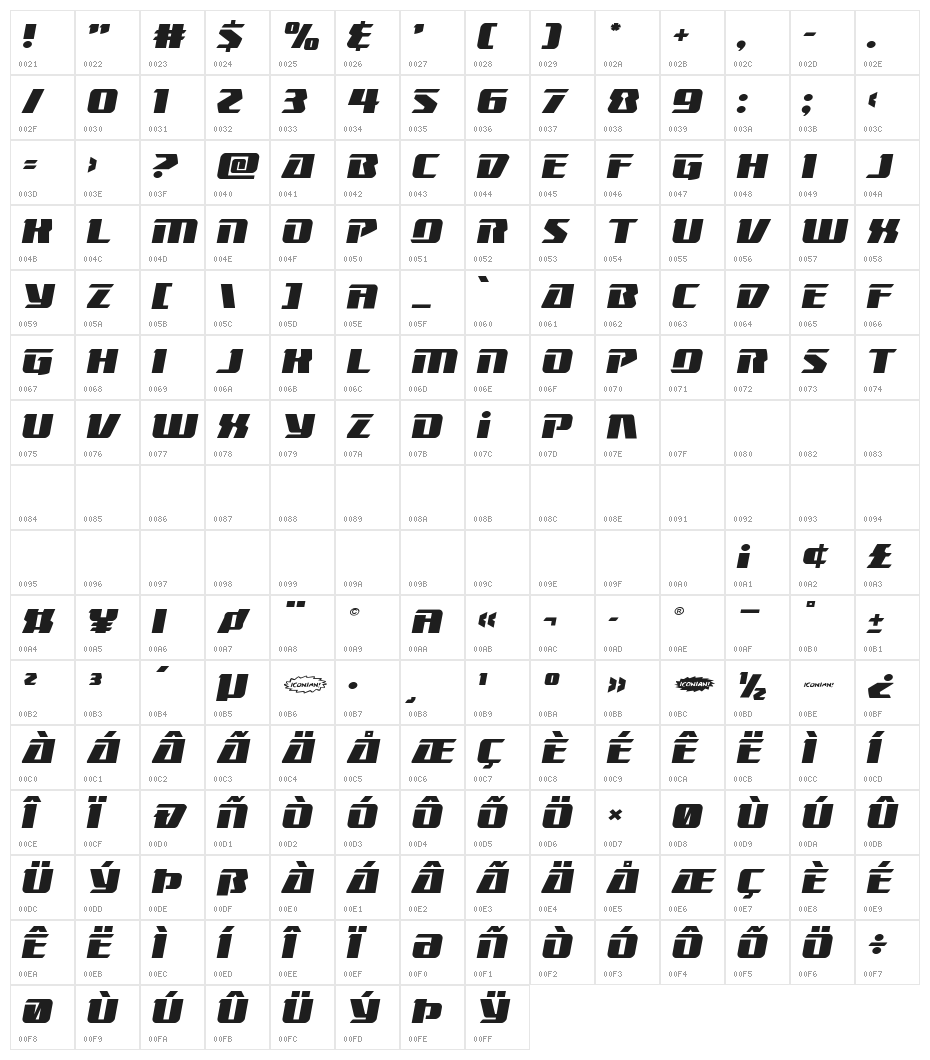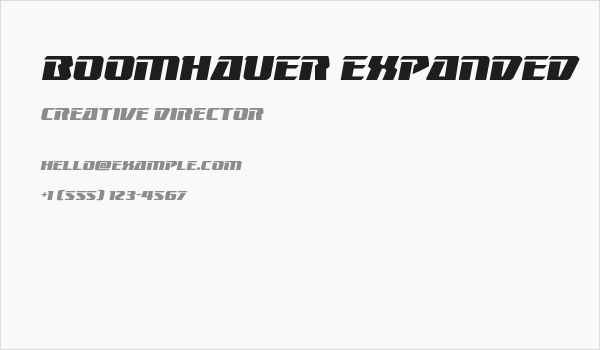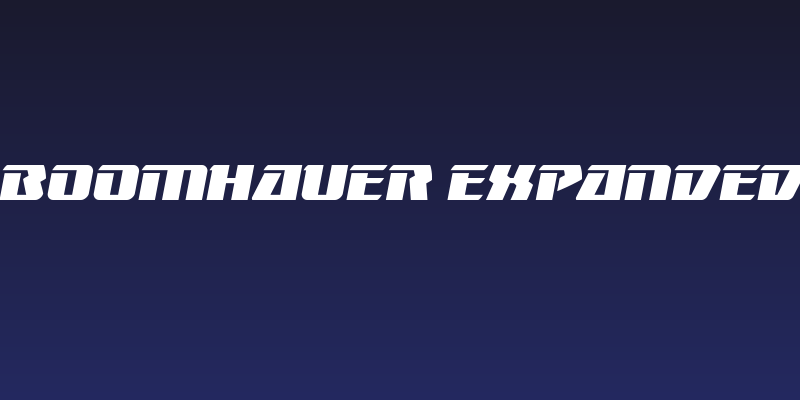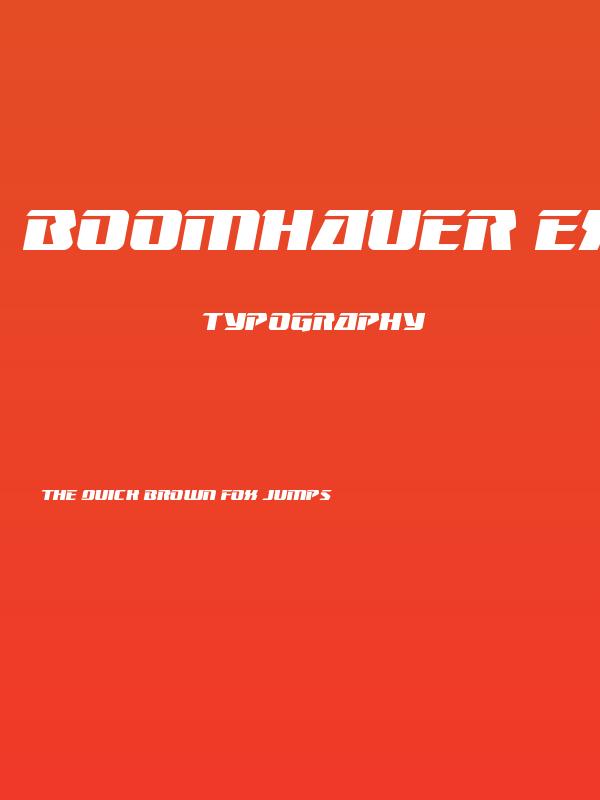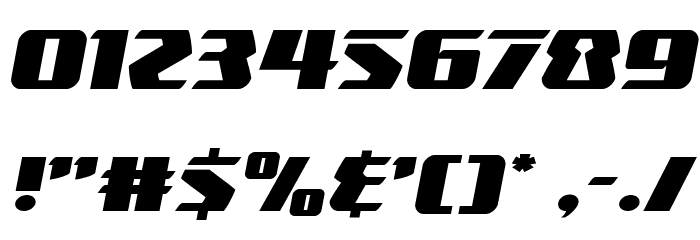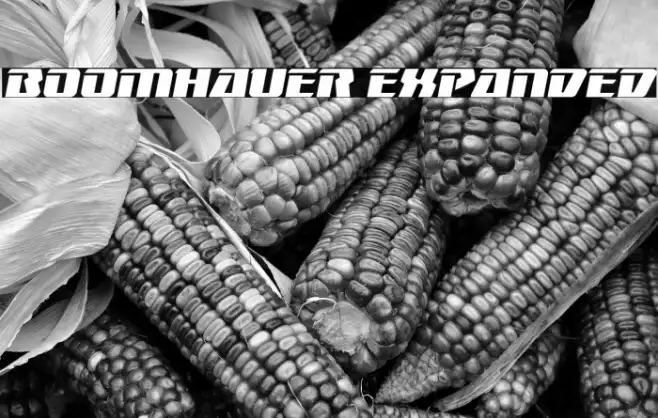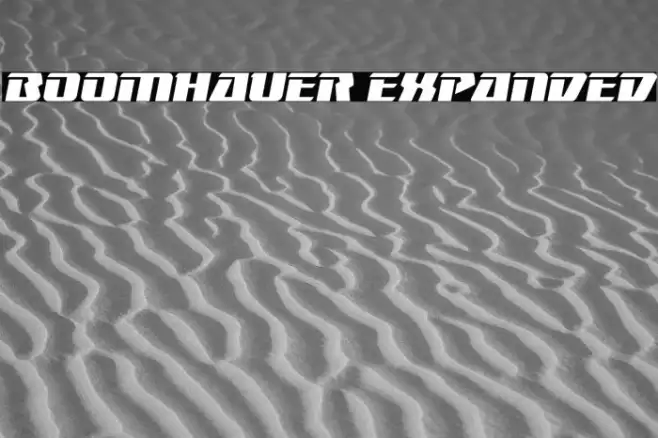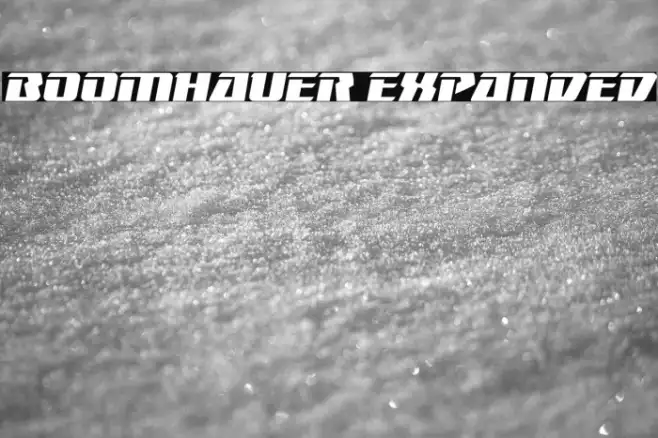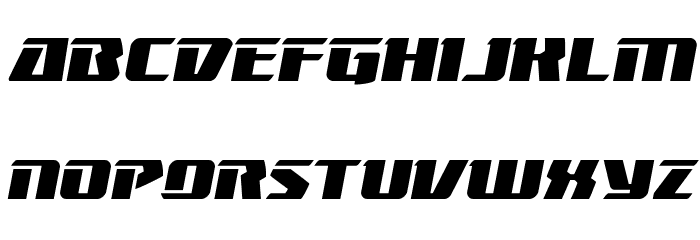
Boomhauer Expanded Font
Boomhauer Expanded Description
This font features a bold and dynamic design with a futuristic flair. The characters are sharply angled and have a distinct geometric style, giving them a sense of movement and energy. The uppercase and lowercase letters maintain a consistent width, creating a uniform appearance. The numbers and special characters follow the same bold and angular design, ensuring cohesion across all elements. This font's unique style makes it stand out, with its thick strokes and sharp edges that convey a sense of strength and modernity.
| Proposed Projects | Ideal for use in sci-fi themed projects, video game titles, posters, and branding that requires a modern and edgy look. |